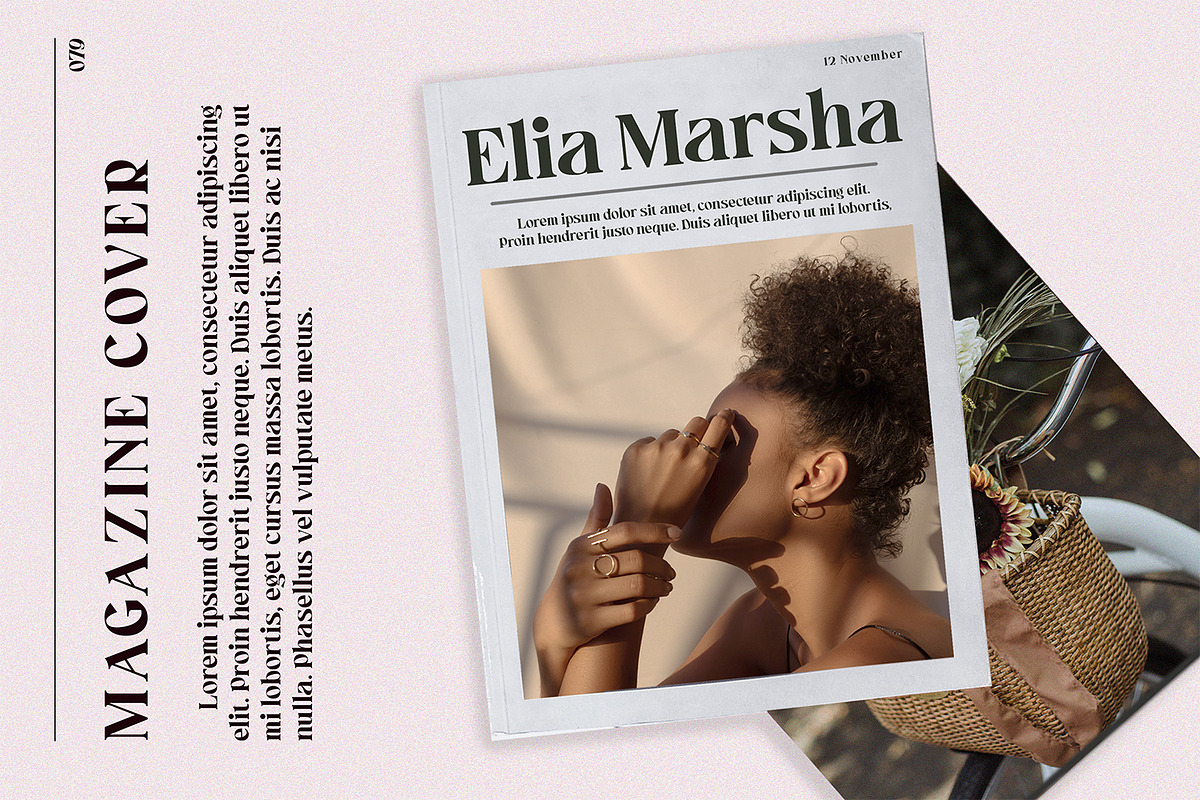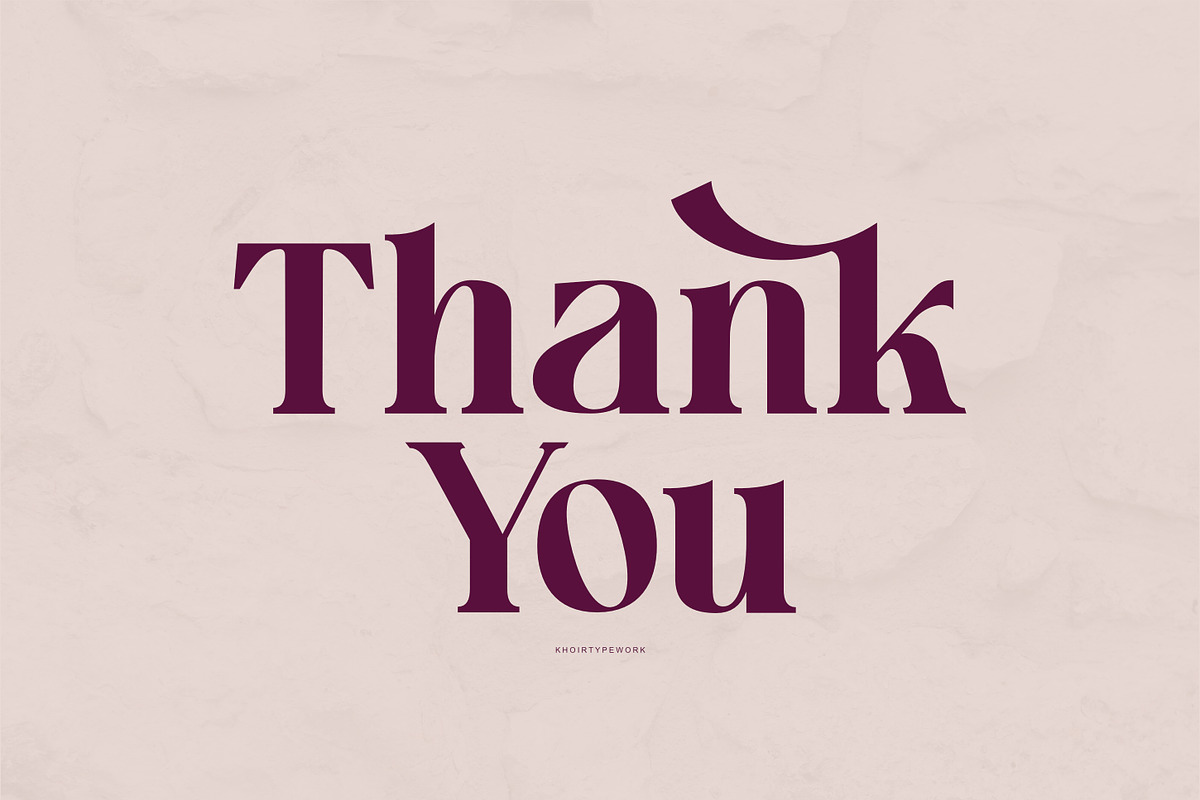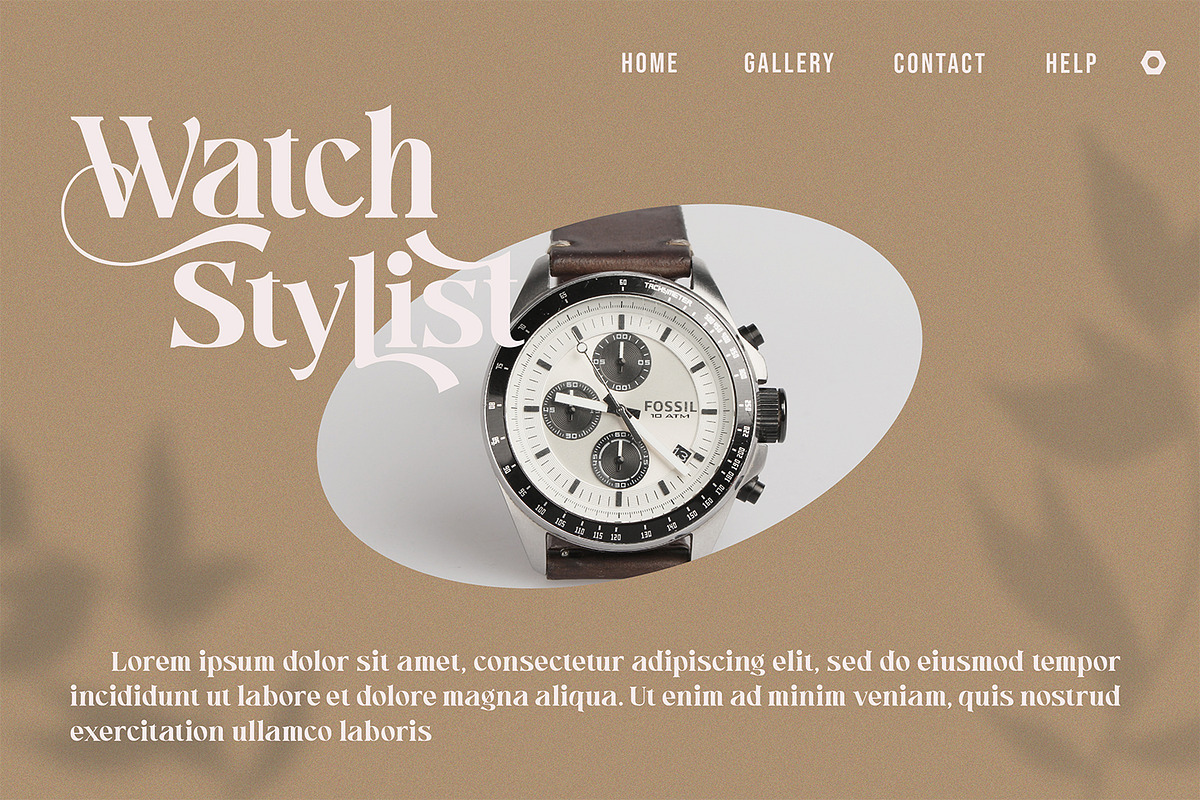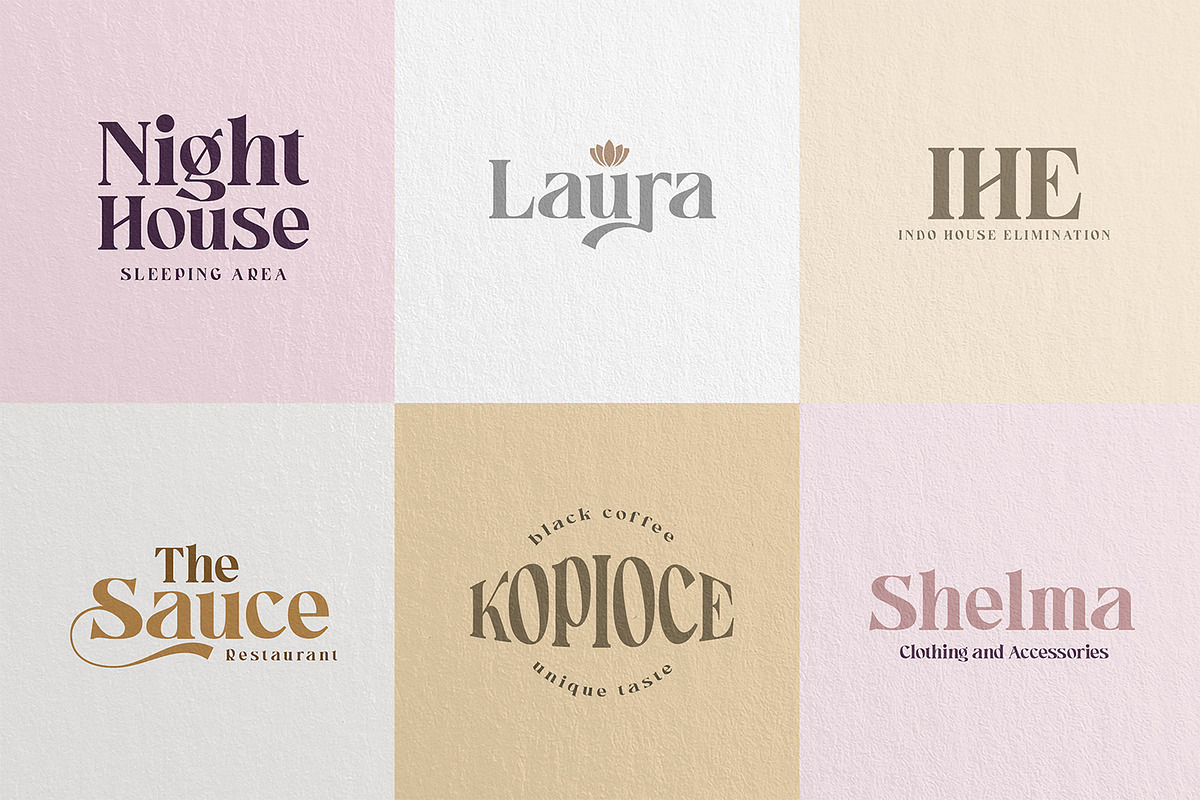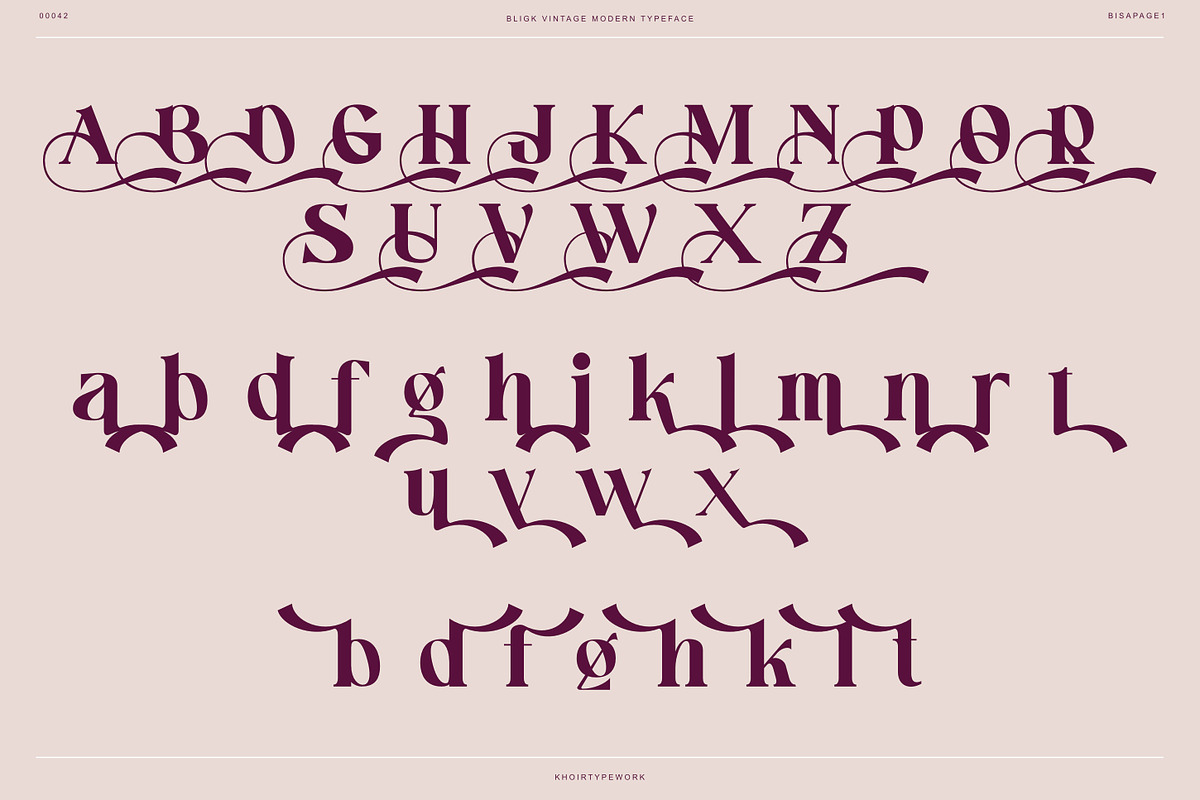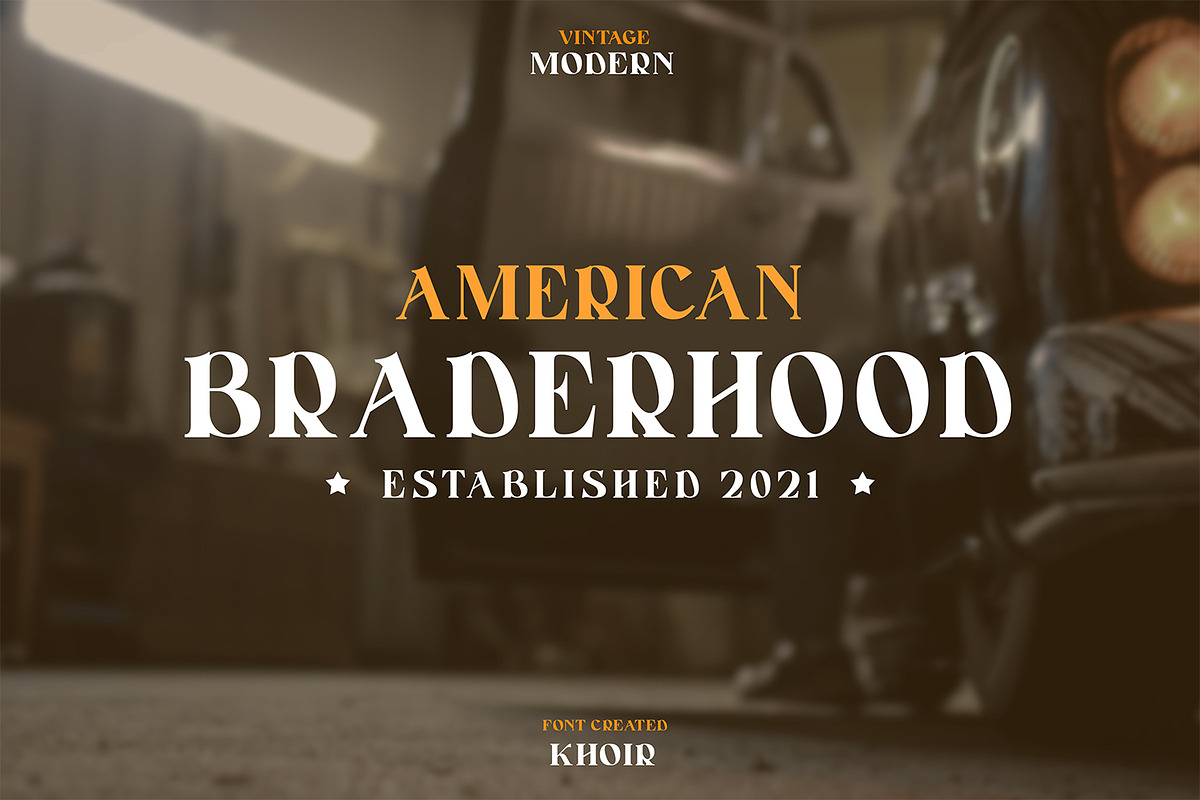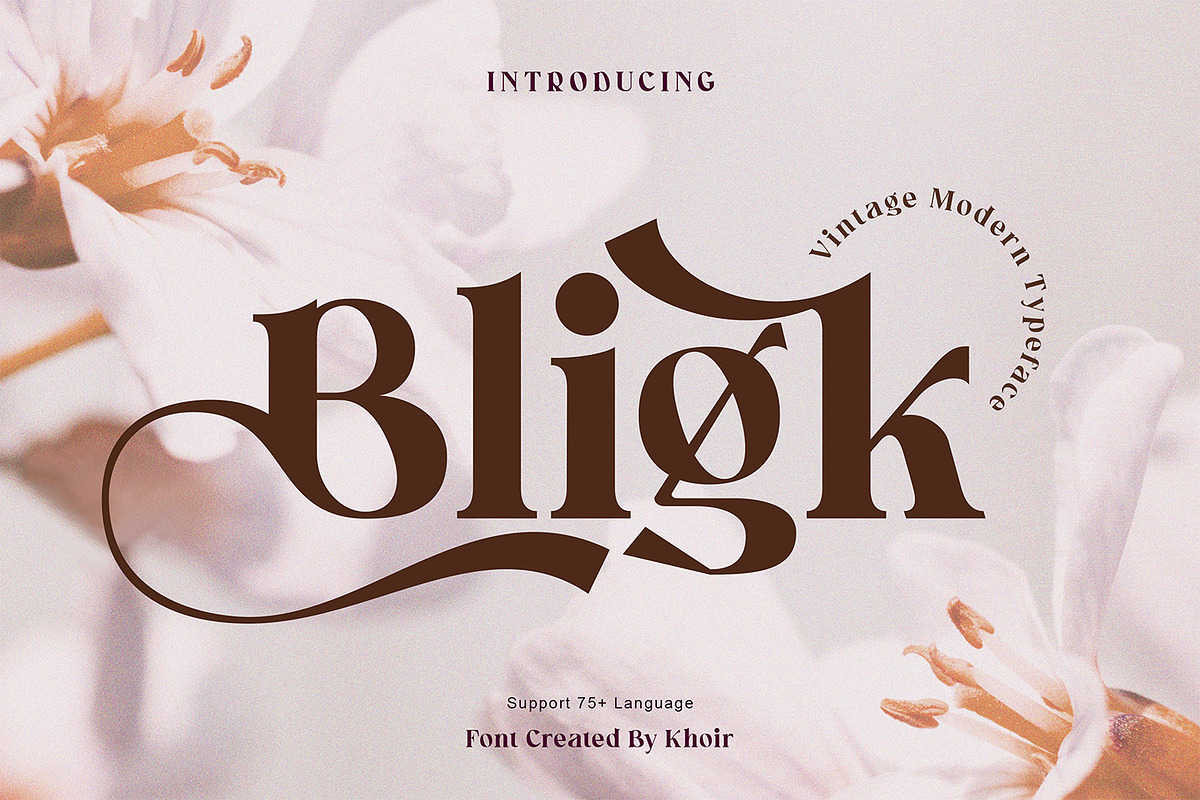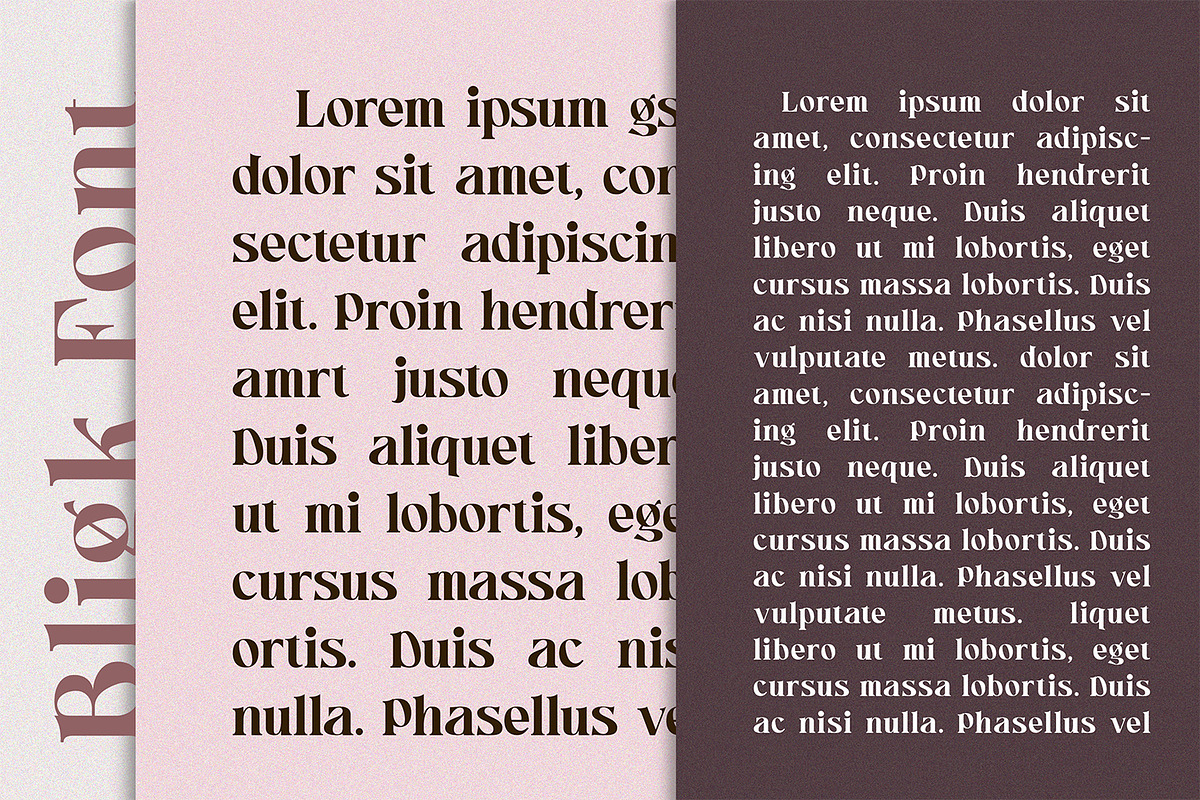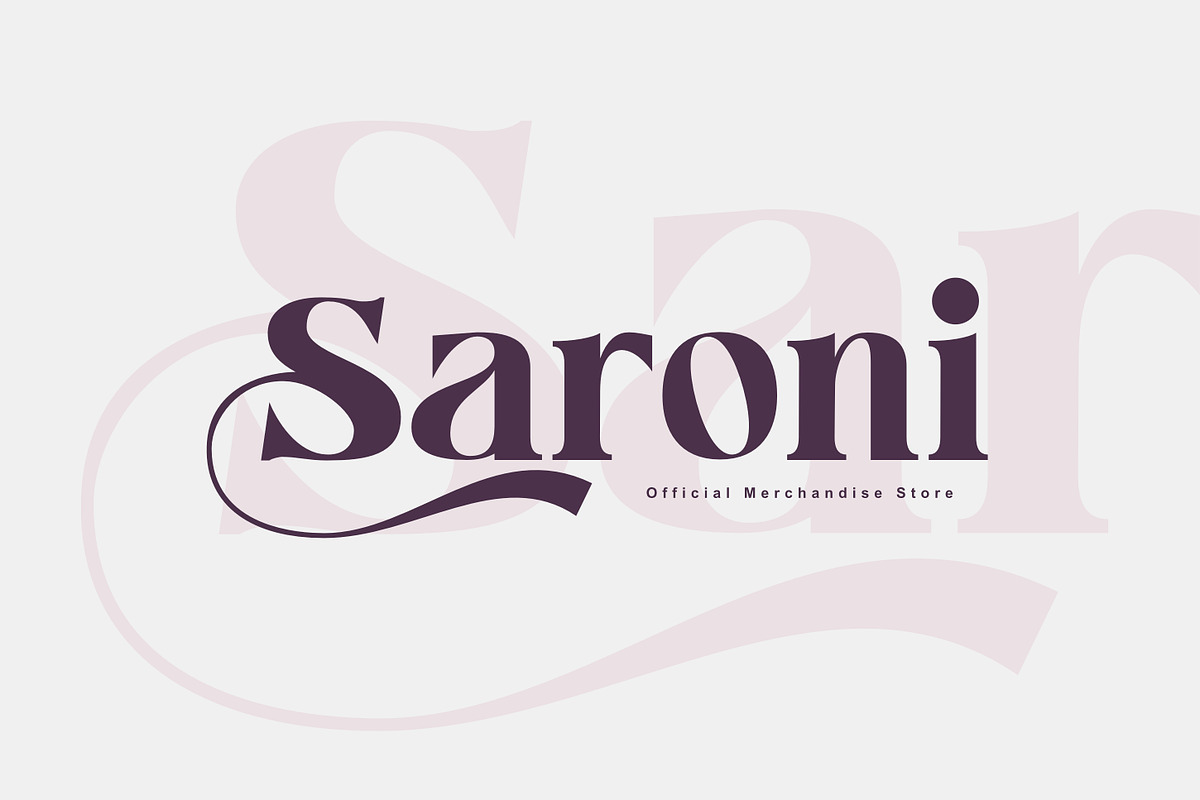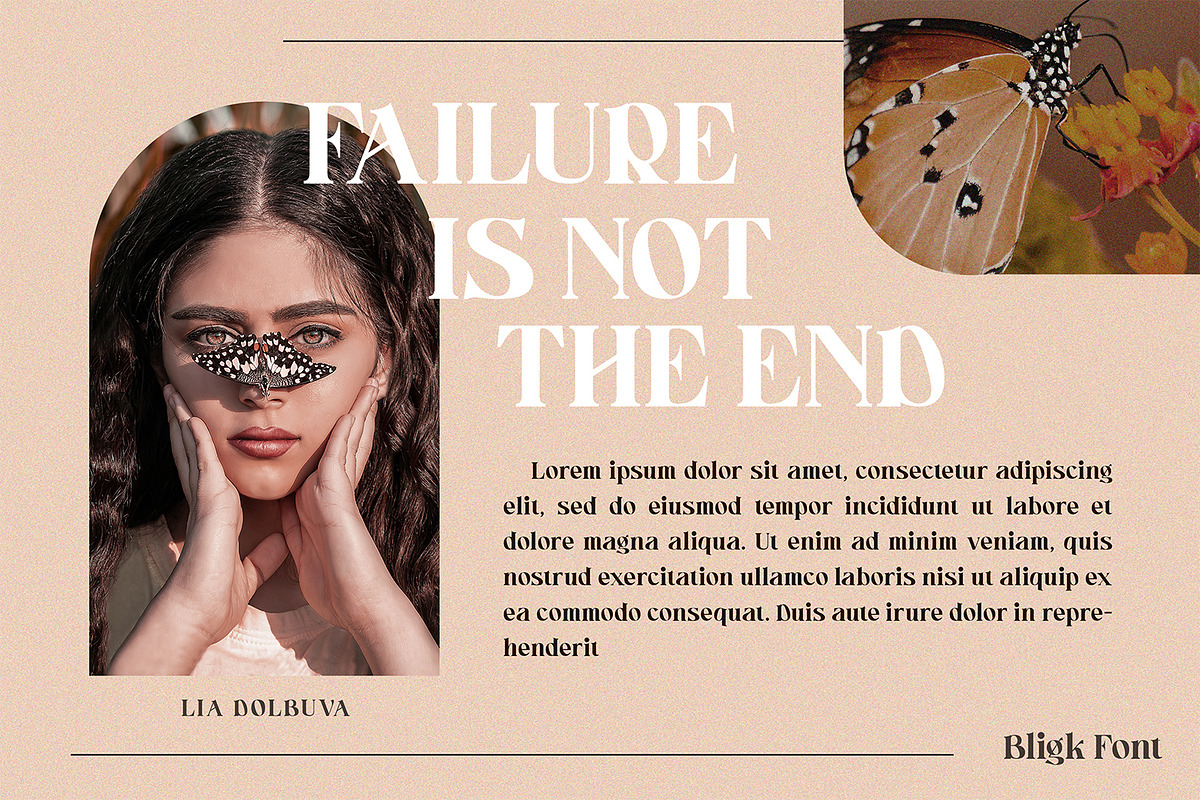
Bligk - Vintage Modern
Introducing Bligk - Serif which has a modern impression but is wrapped with a vintage impression inspired by Art Nouveau Design so as to produce a unique and elegant impression, so that it can be applied to today's design styles, Supported by custom and multilingual alternatives that are complete and function well so that the font it is perfect for logos, branding, designs, invitations, novels, posters, books, magazines, labels, web design, greeting/wedding cards. So what are you waiting for!
- Uppercase Characters
- Lowercase Characters
- Support 75+ Language